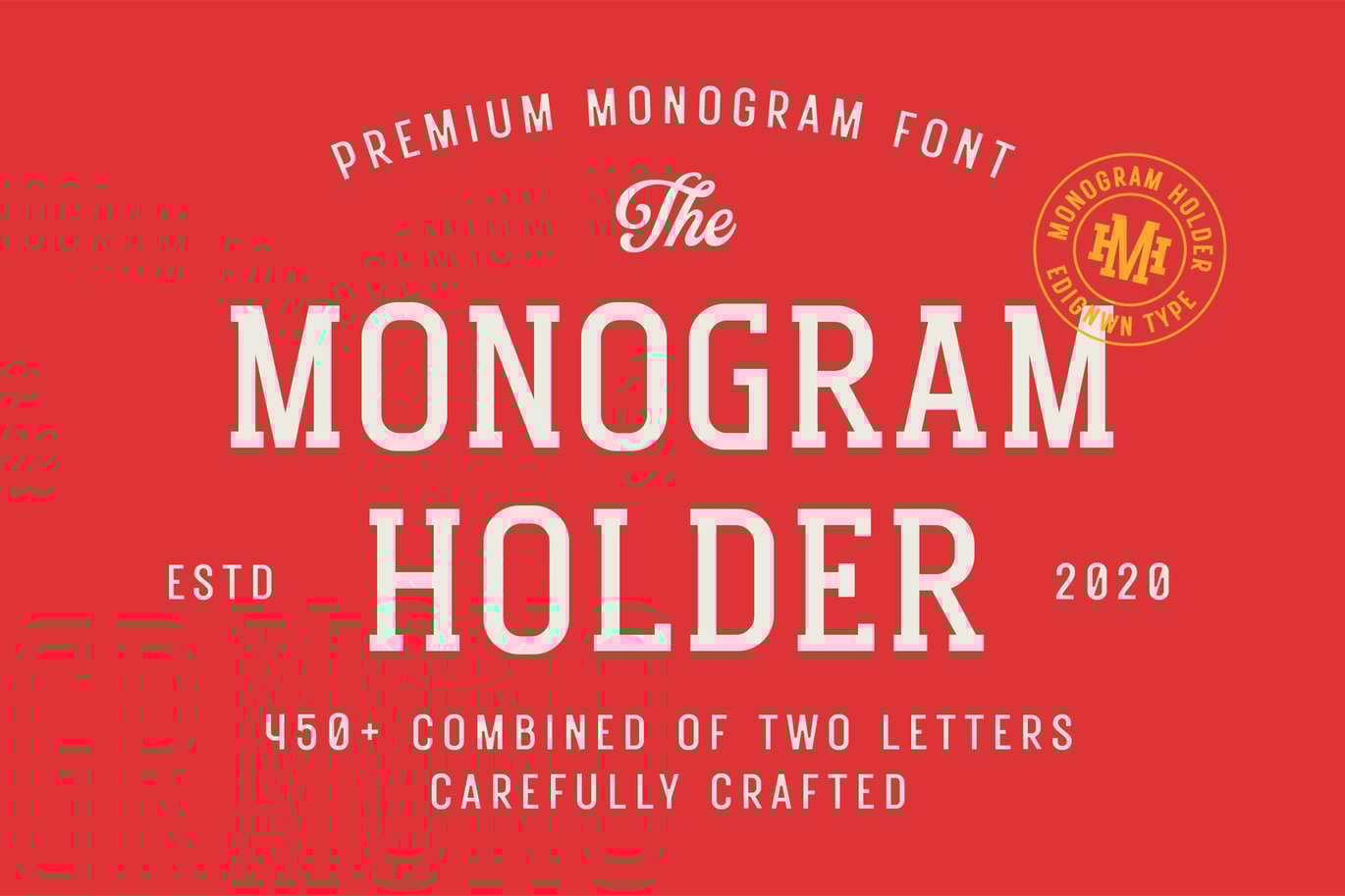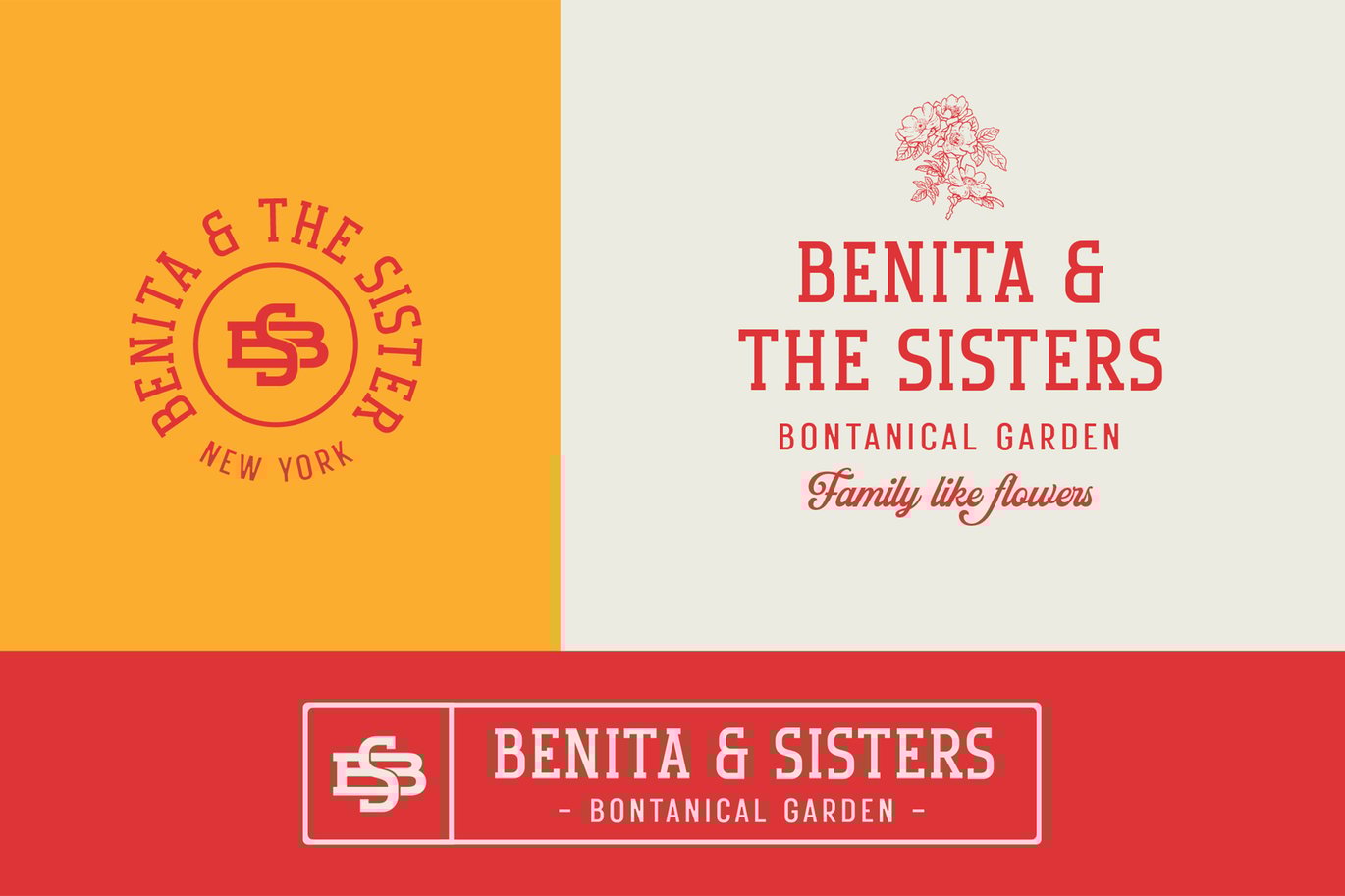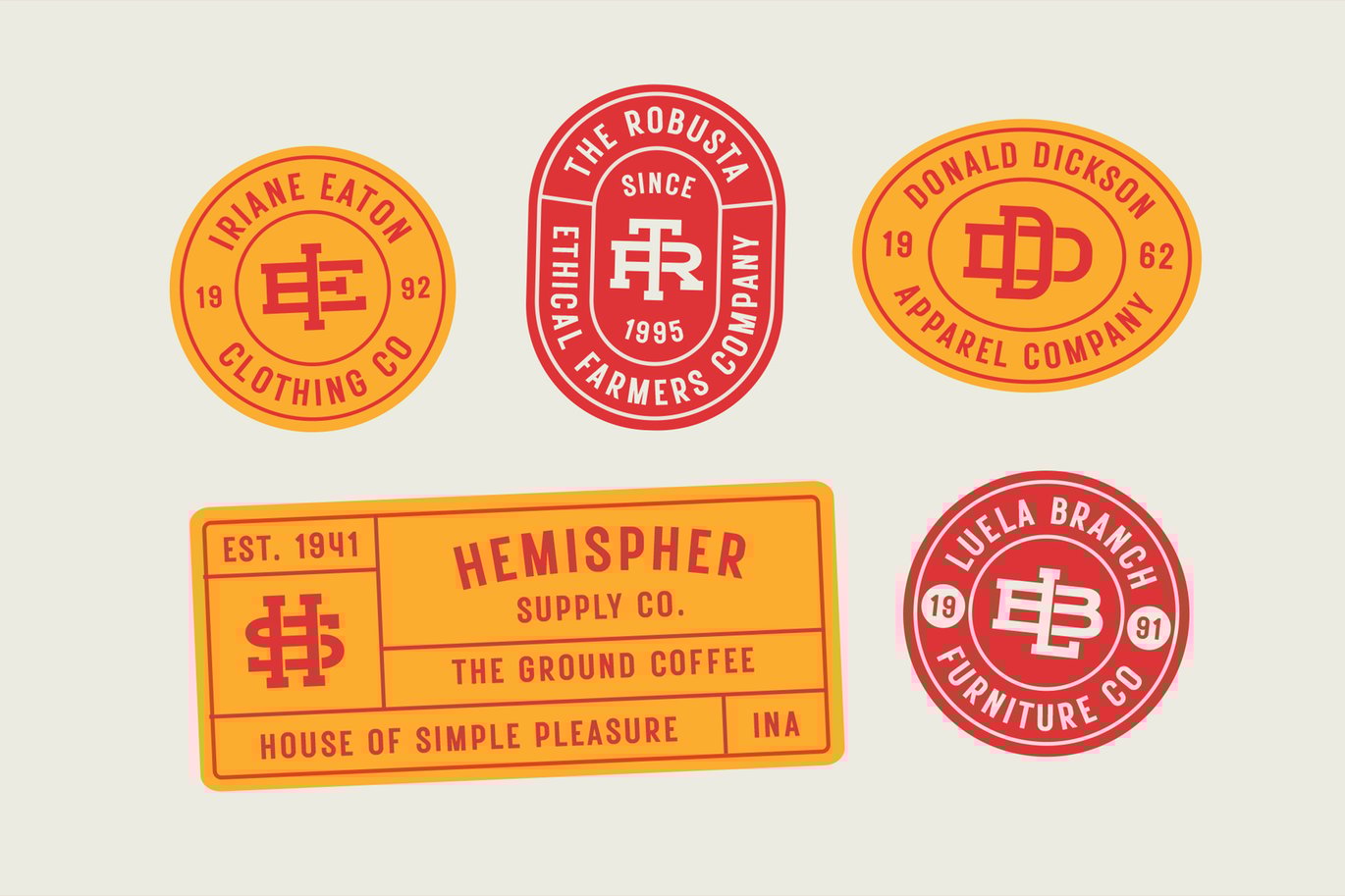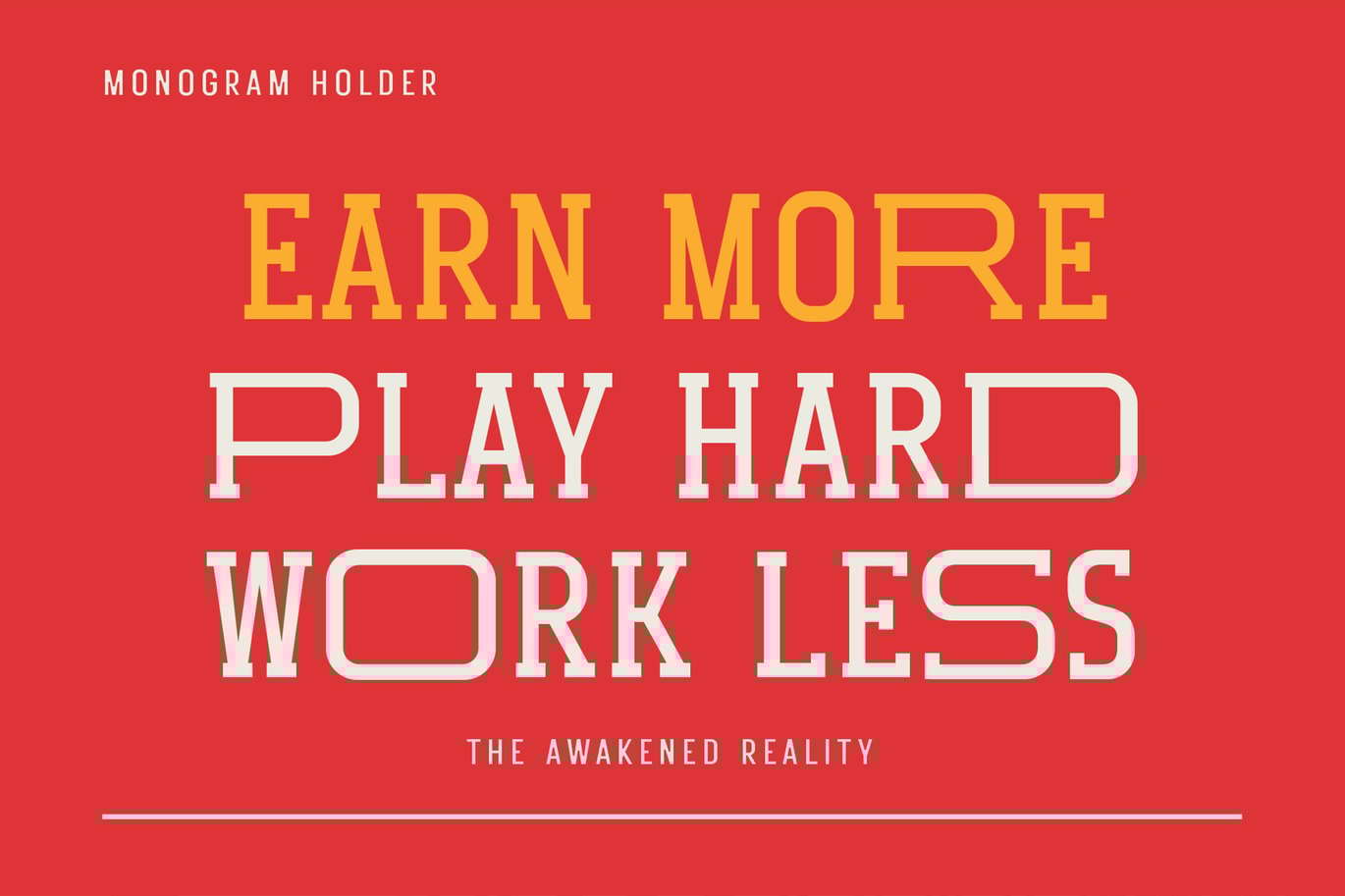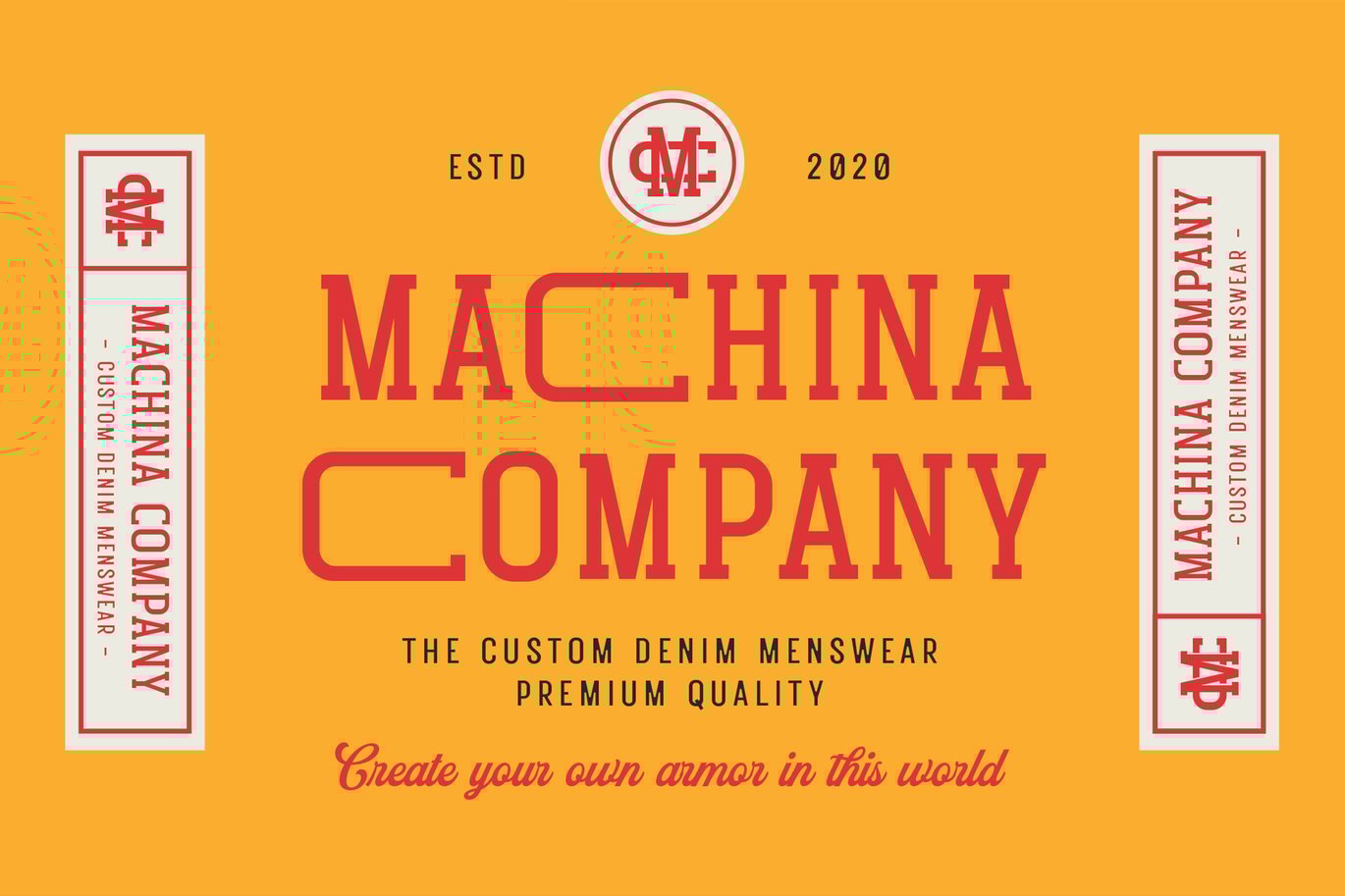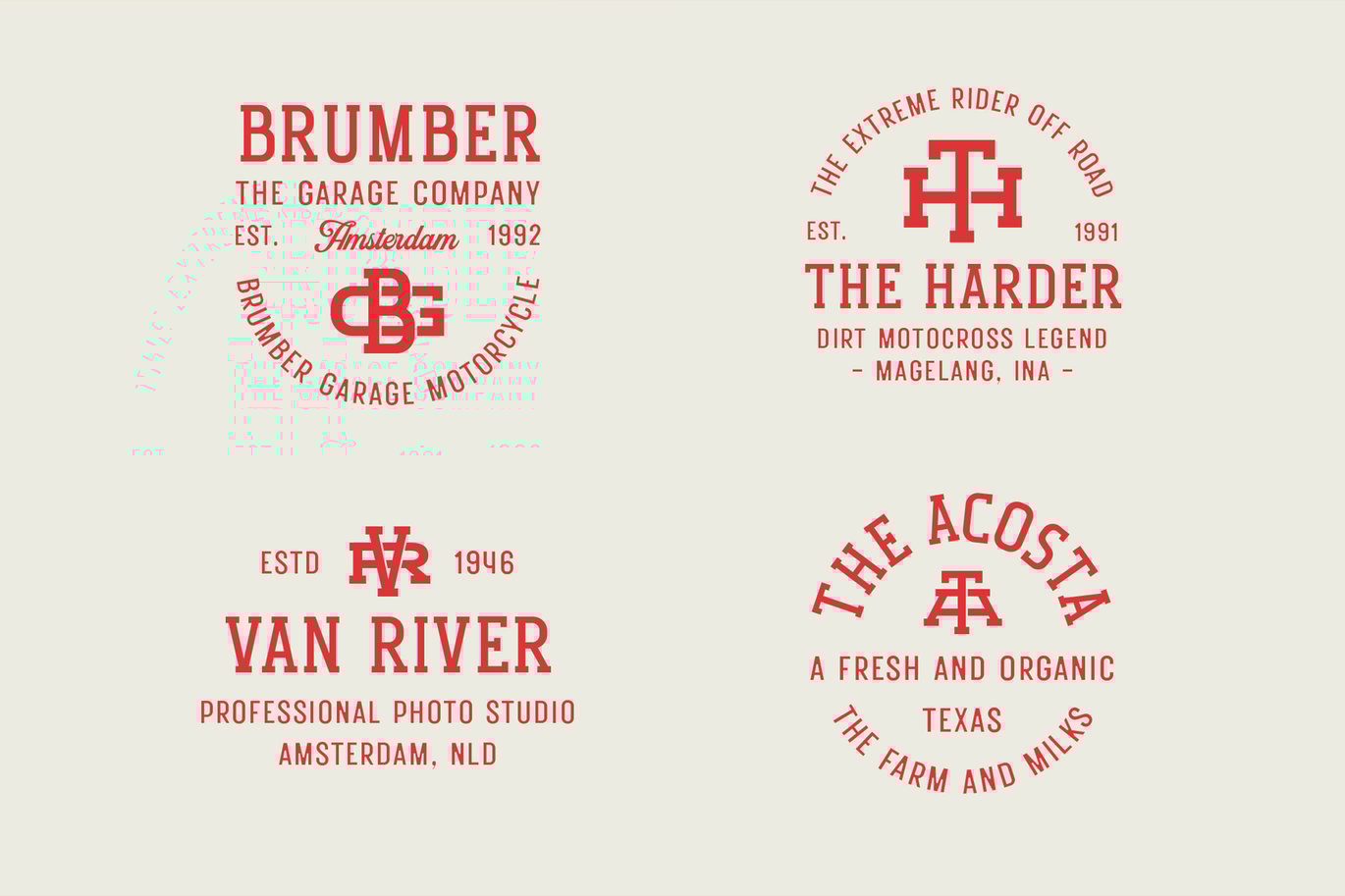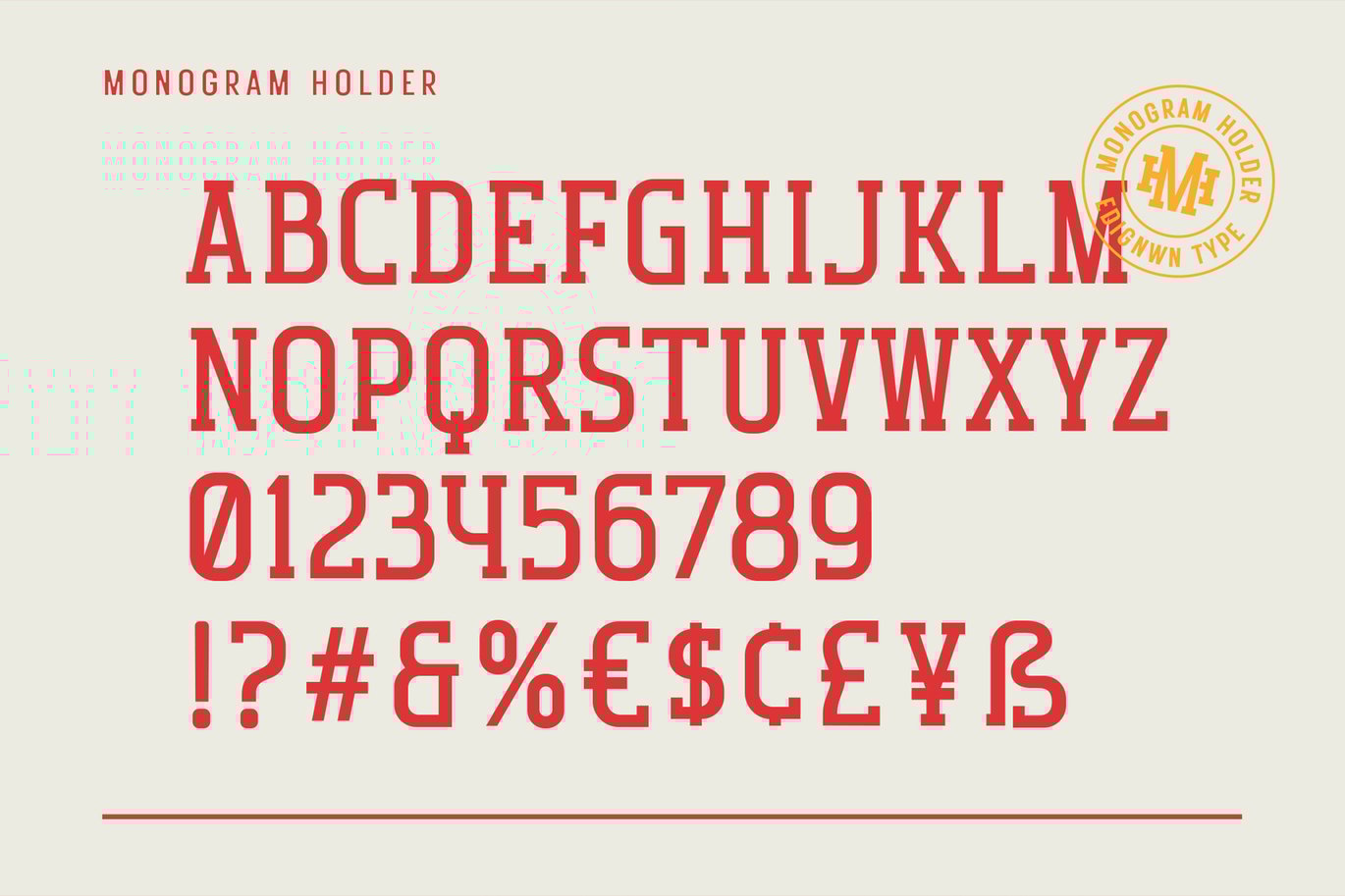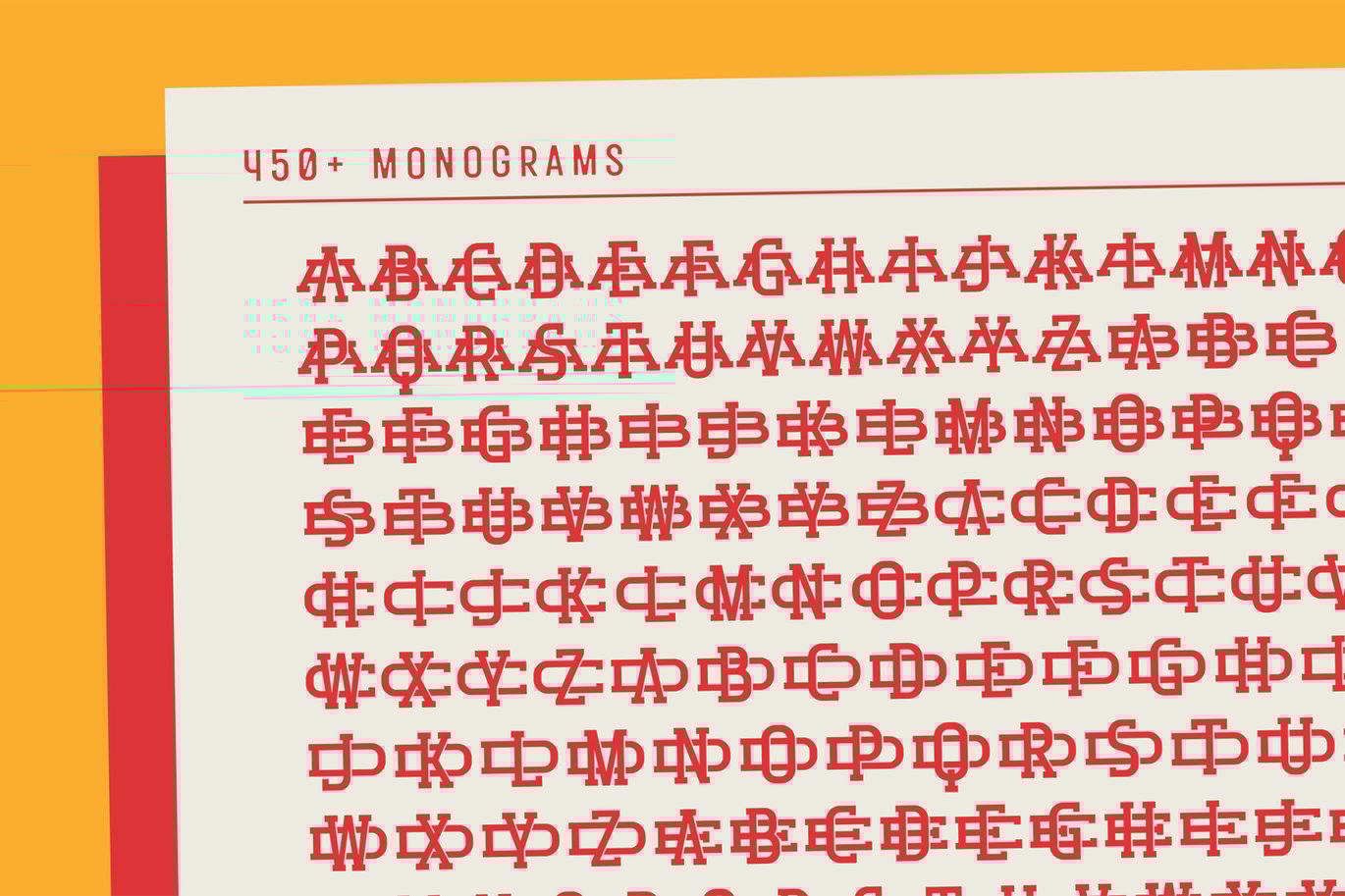
Monogram Holder – Display Font
The font is called “Monogram Holder”, it is a slab serif display with monogram themes. The font comes with 450+ combined of two letters, you just type uppercase letters with lowercase letters. For example you type “M” combined with “h” then it will become a ligature monogram of “M” and “h”. This font includes different widths of alternate glyphs. The Monogram Holder matches apply in some designs such as the logotype, poster, label, badge, packaging, branding, and more custom design.
Monogram Holder includes :
- 450+ ligature monograms
- All-caps, numeral, symbol and punctuation